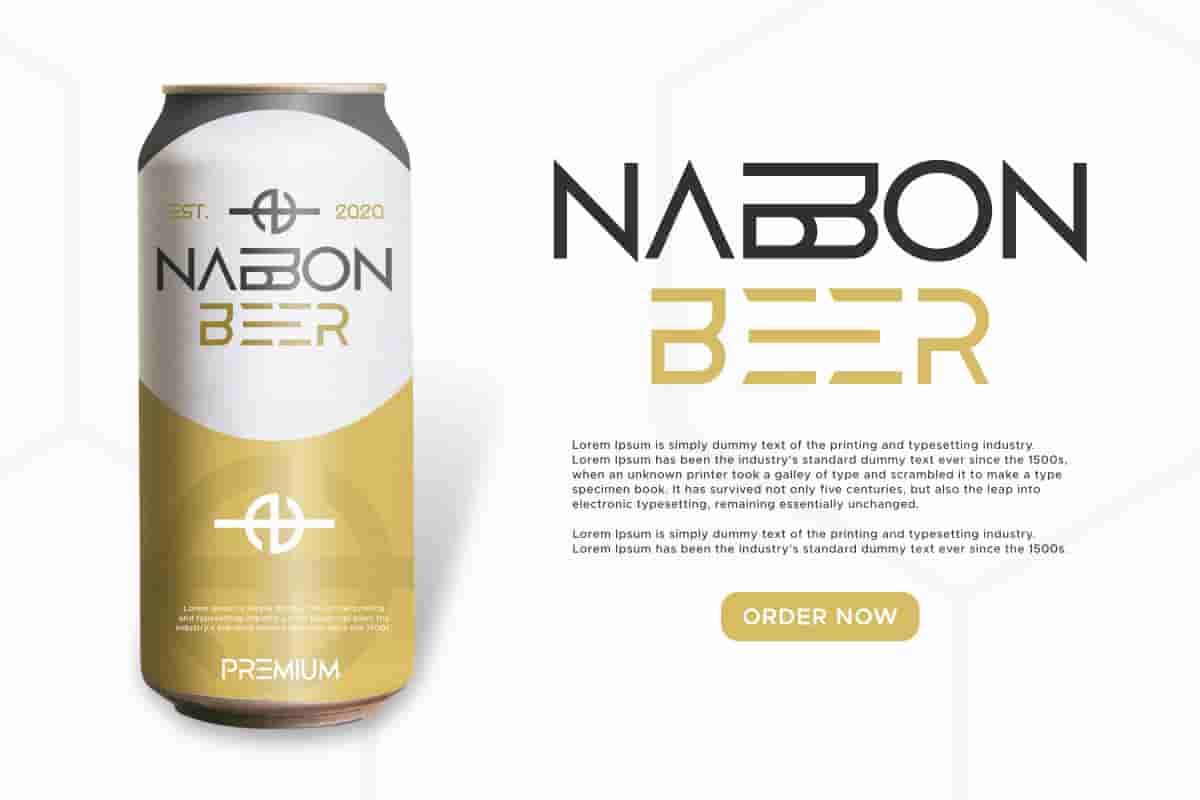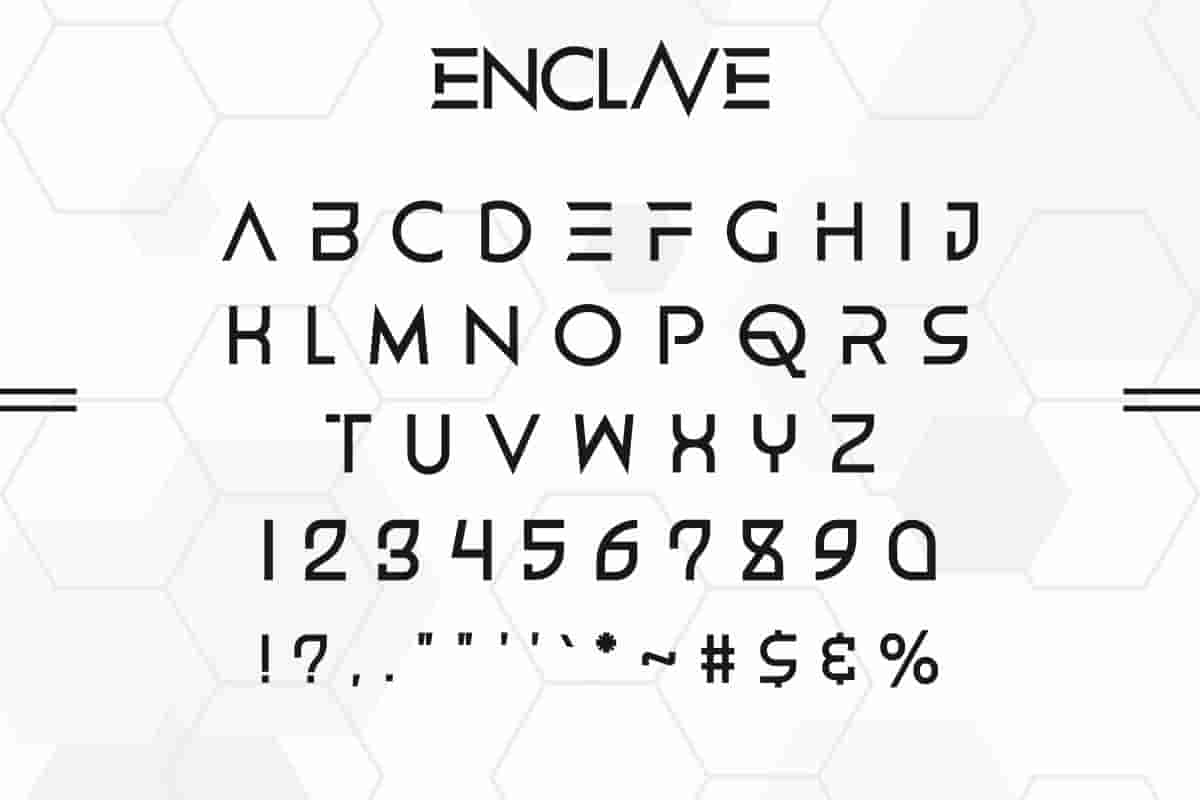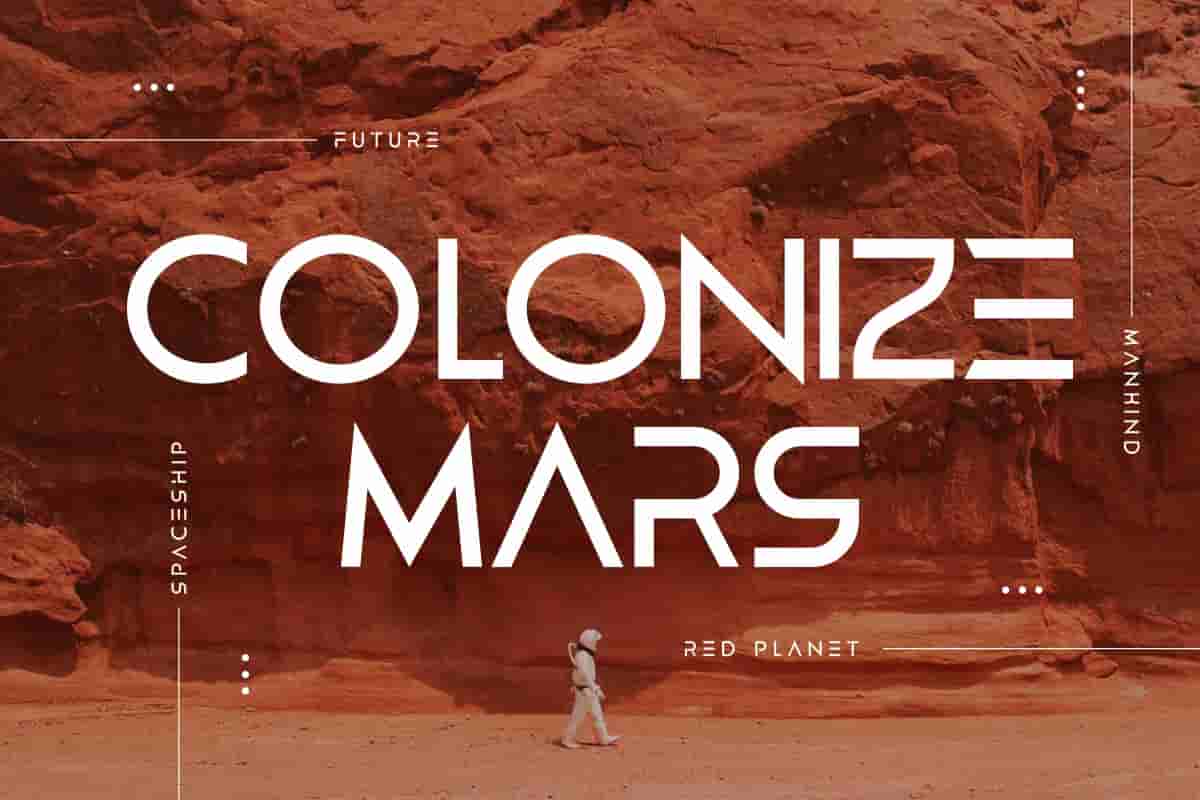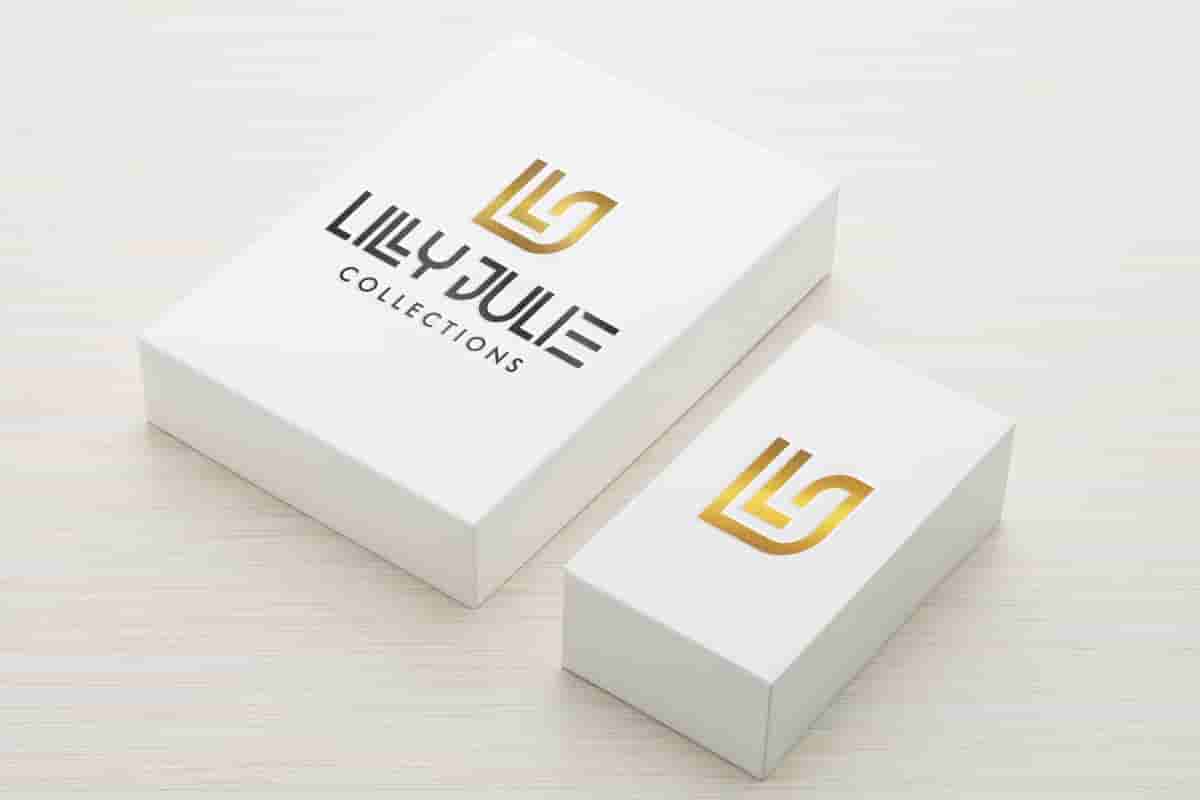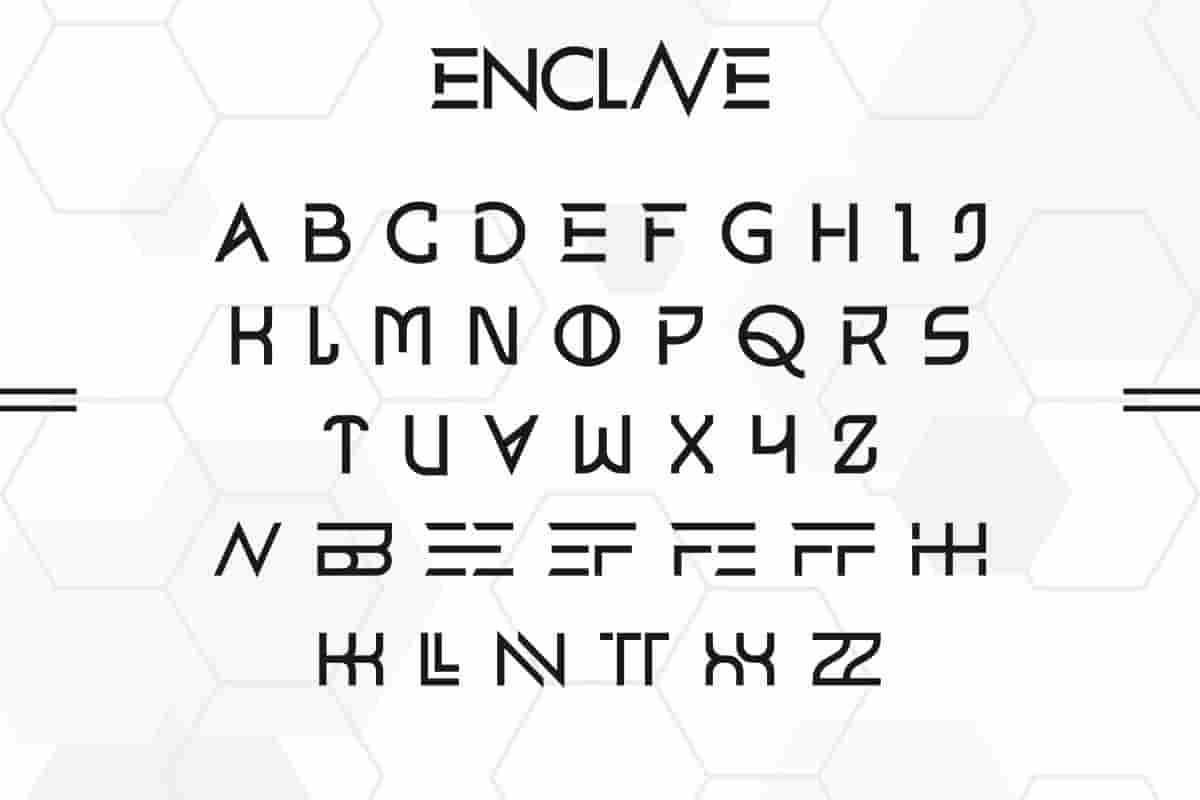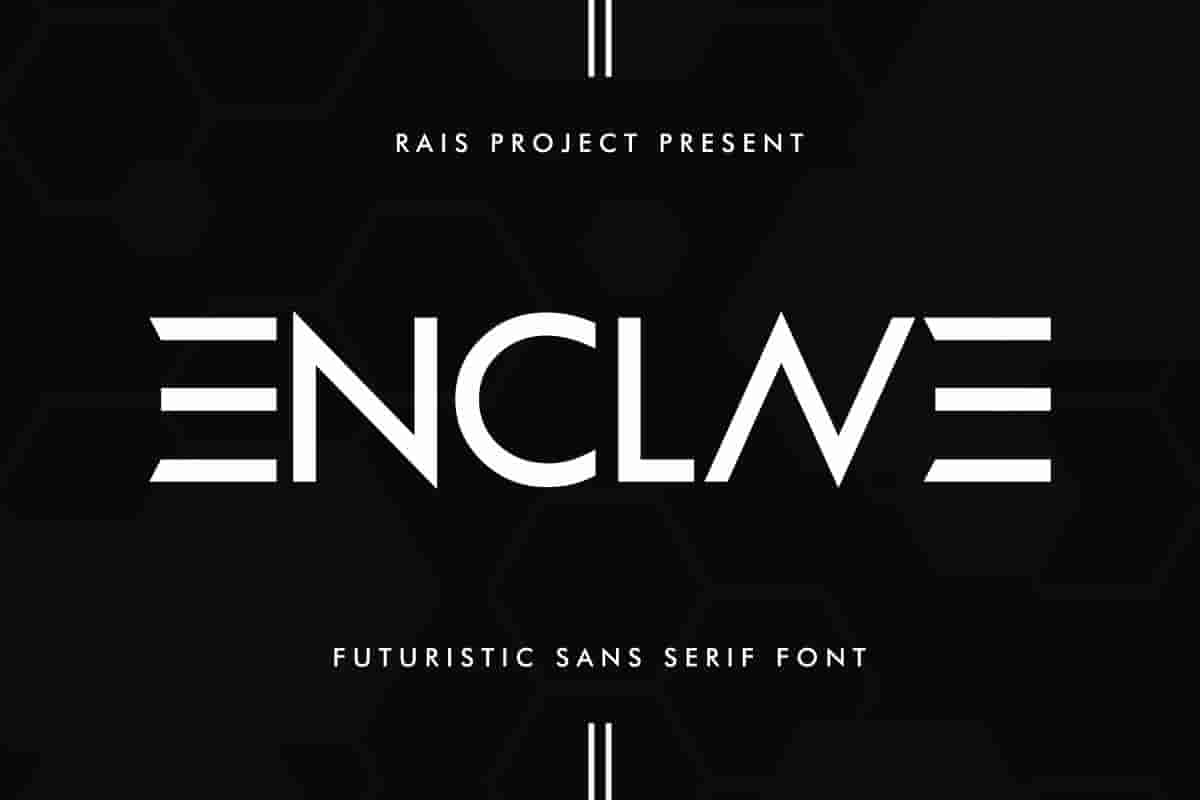
ENCLAVE Sans Serif Font
ENCLAVE Font is a display futuristic sans serif font, designed by Rais Project. It has unique & exclusive letters that will be awesome for many designs project.
This modern sans serif font includes multiple weights, making it perfect for both bold titles and elegant body text.From business cards Designed for high readability, ENCLAVE shines on both screen and paper.